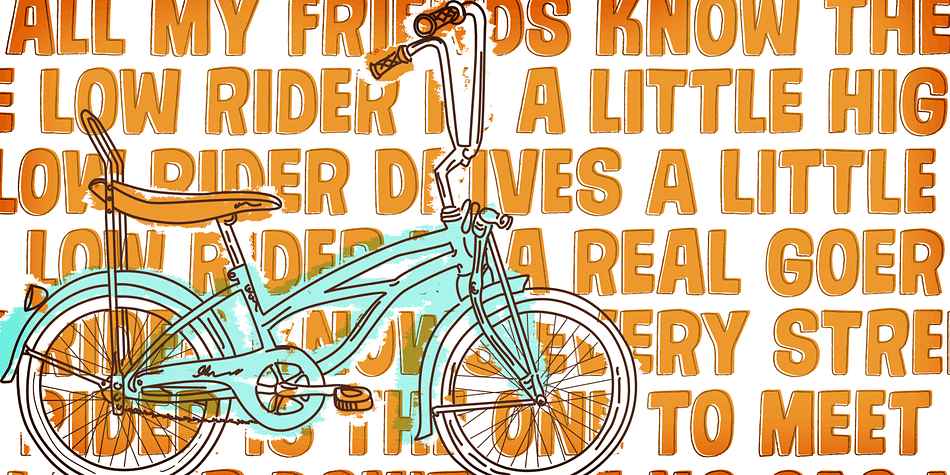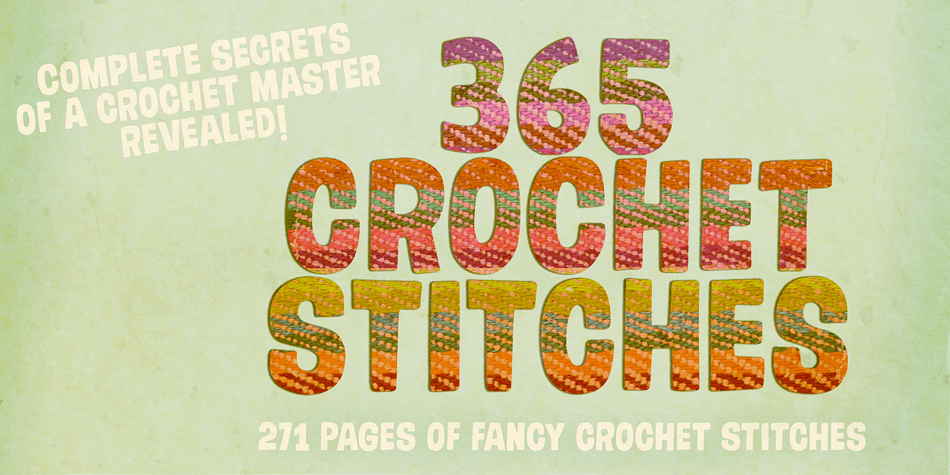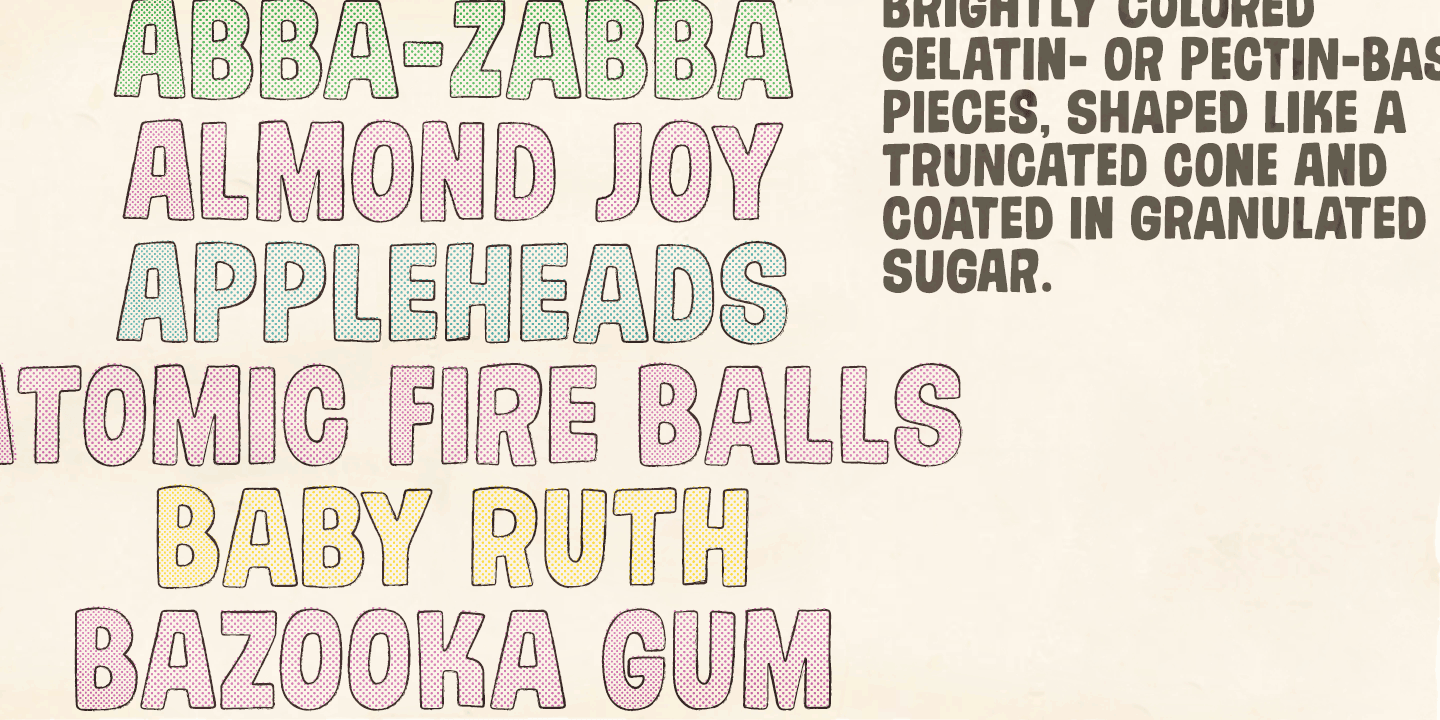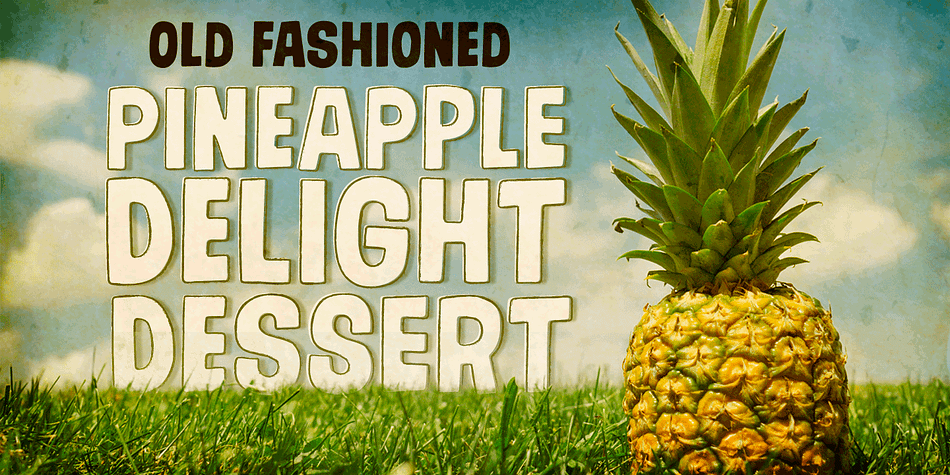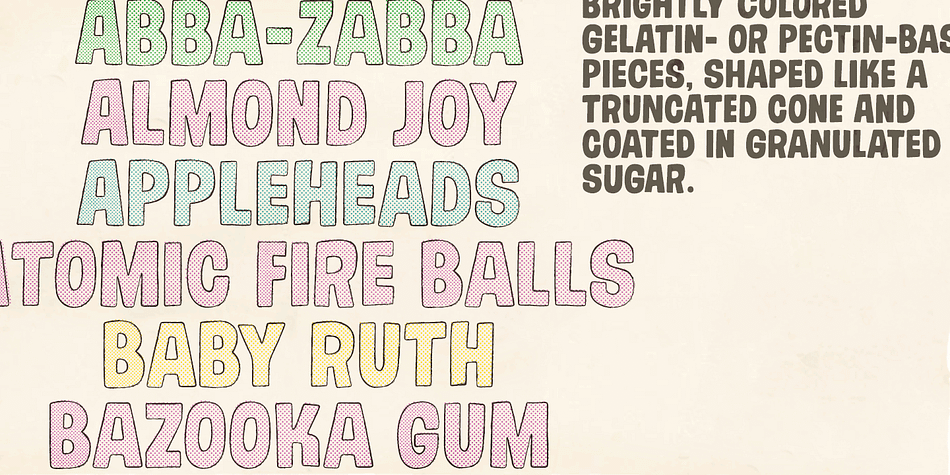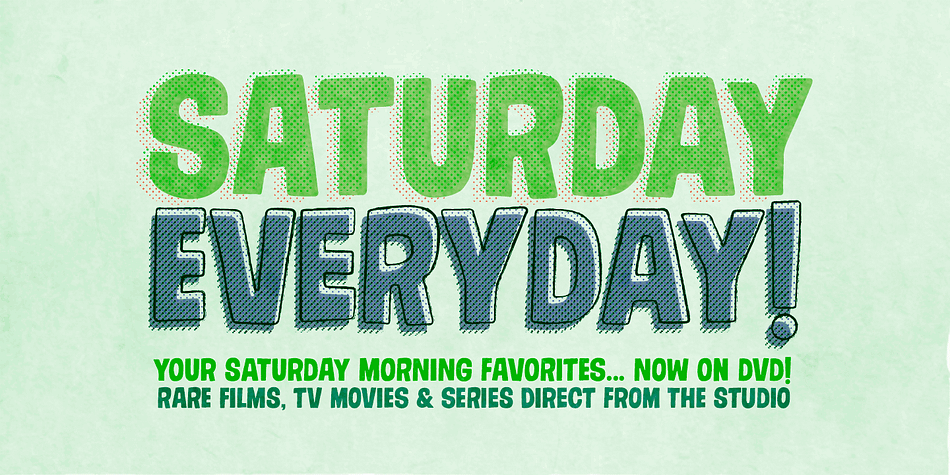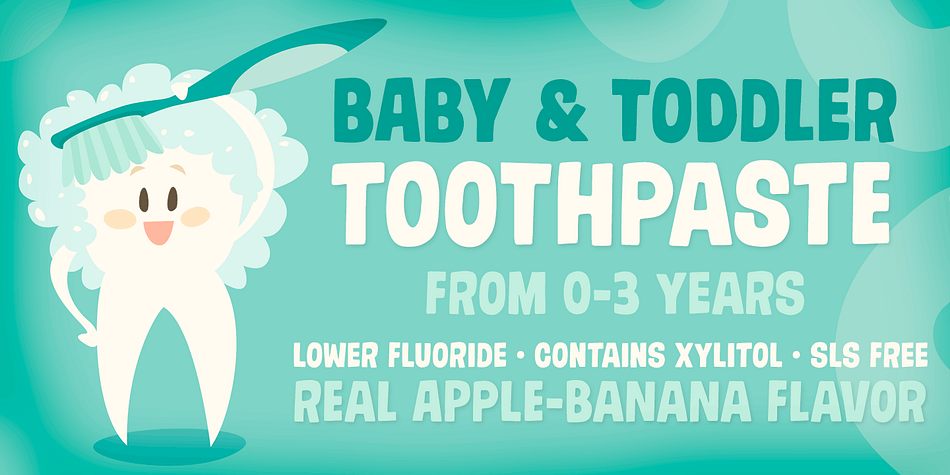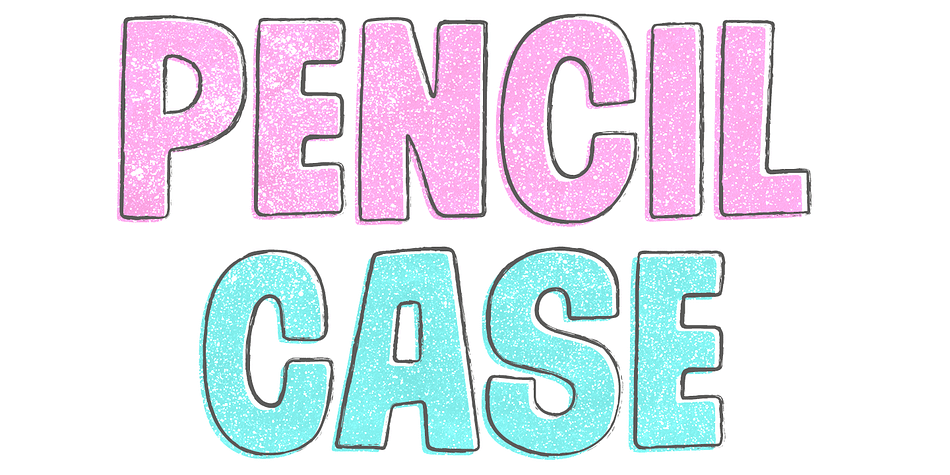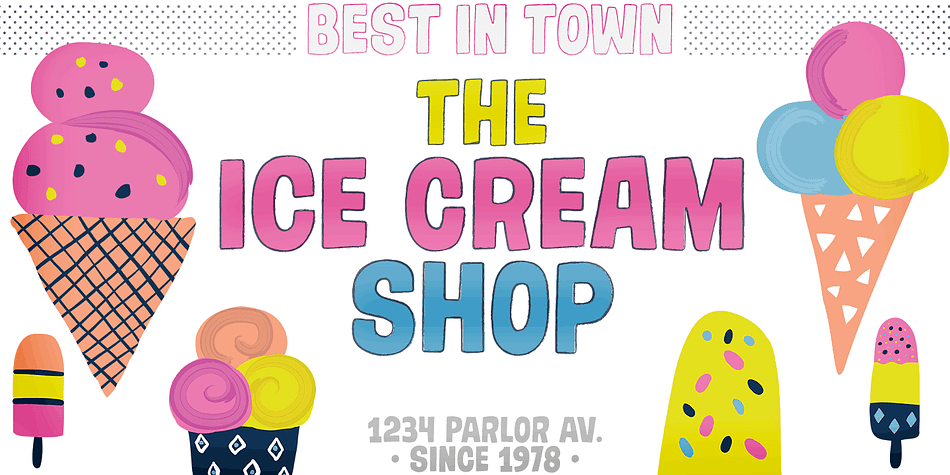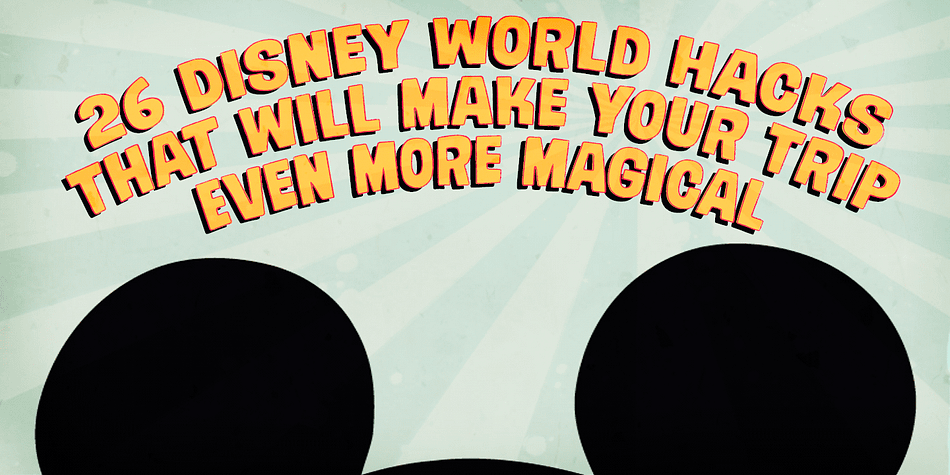
Gumdrop is a hand display font family. This typeface has three styles and was published by PintassilgoPrints.
Gumdrop is a soft sans. Stylish, original and a little bit retro, it’s an all caps font with two options for each letter and number for added spontaneity. Contextual alternates feature is included and manage the instant cycling of these alternates with the click of a button.
The regular cut itself is already quite a versatile one, and the family counts yet with a cool halftone cut and a pencil-like outlined version.
Is this just another damn handsome font? Hell, yes. Keep it handy!